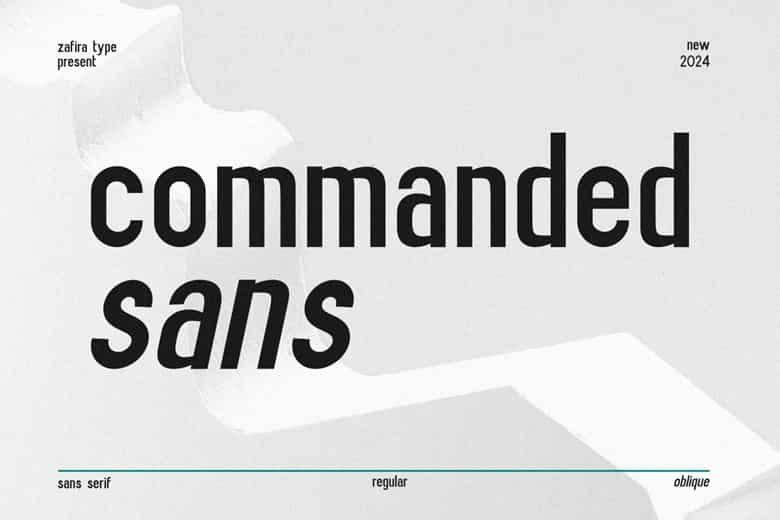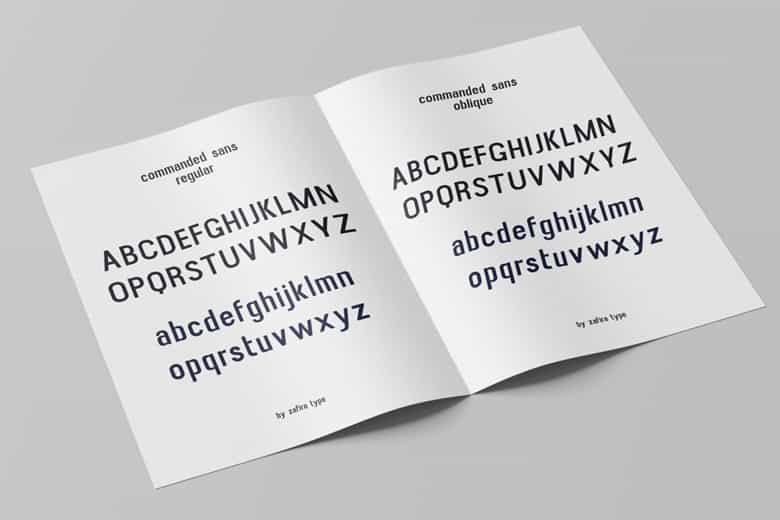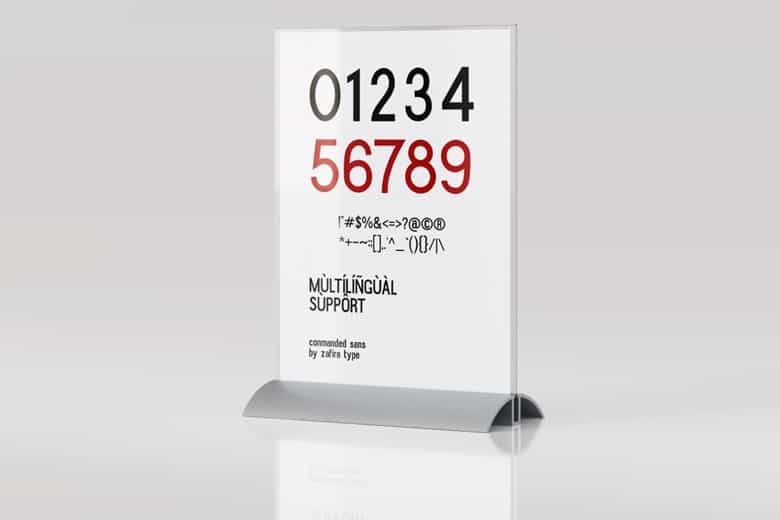
Commanded Sans is a new sans serif typeface designed to convey a modern and professional impression, featuring two elegant styles: Regular and Oblique. Few sharp edges and well-proportioned characters, this font will suit virtually any design project.